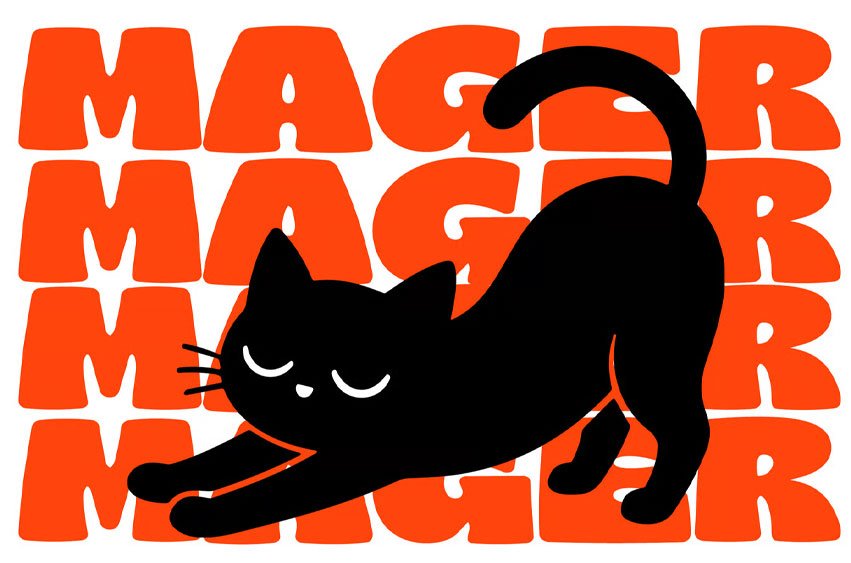
Robs Font display font is characterized by its exceptionally heavy weight and soft, rounded terminals.
The letterforms are thick and blocky, with very small counters that create a dense, high-impact visual texture.